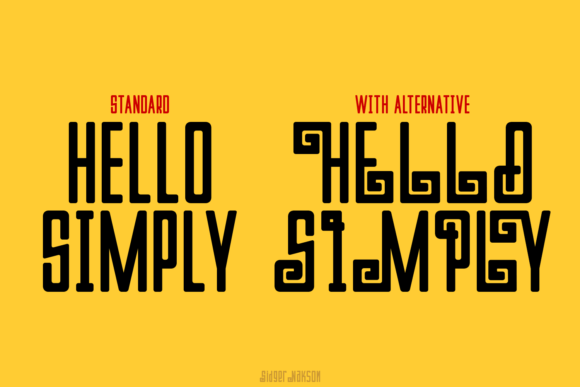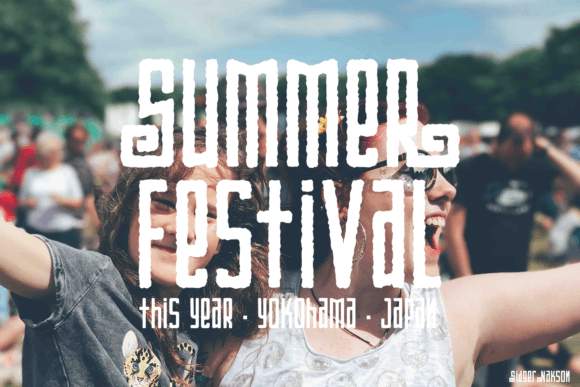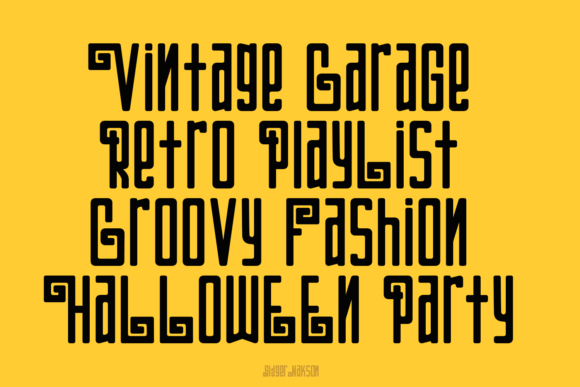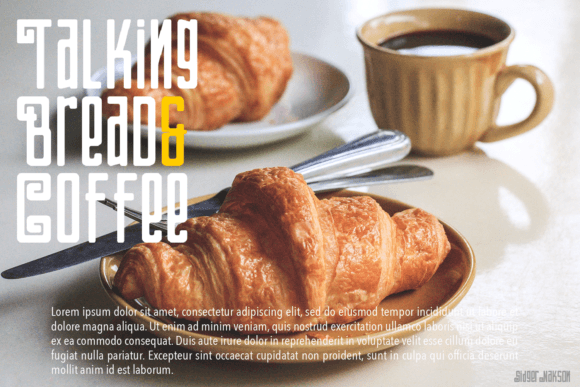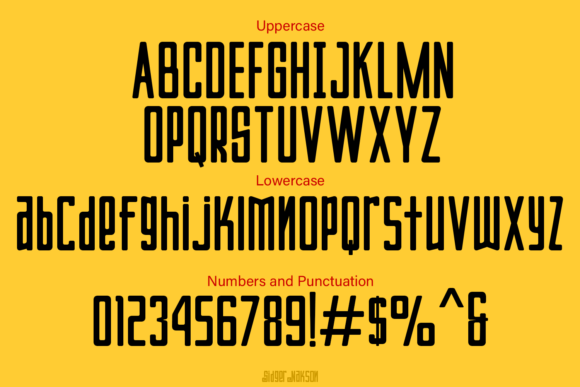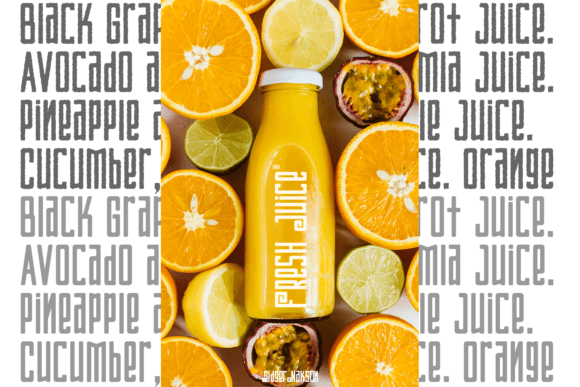
Introduction to Sidger Nakson Font
Sidger Nakson is a display font with regular and rough curly style with many alternatives and ligature.
Its clean and geometric letterforms make it ideal for various design applications, from corporate branding to editorial layouts .